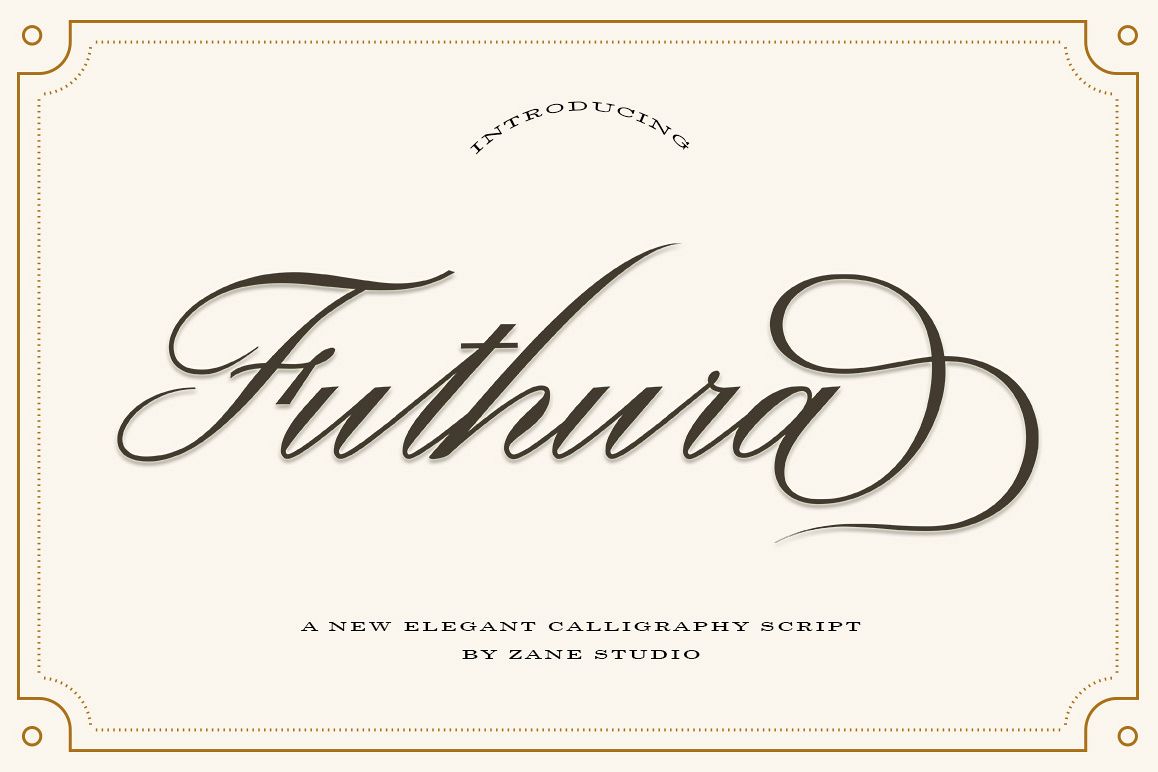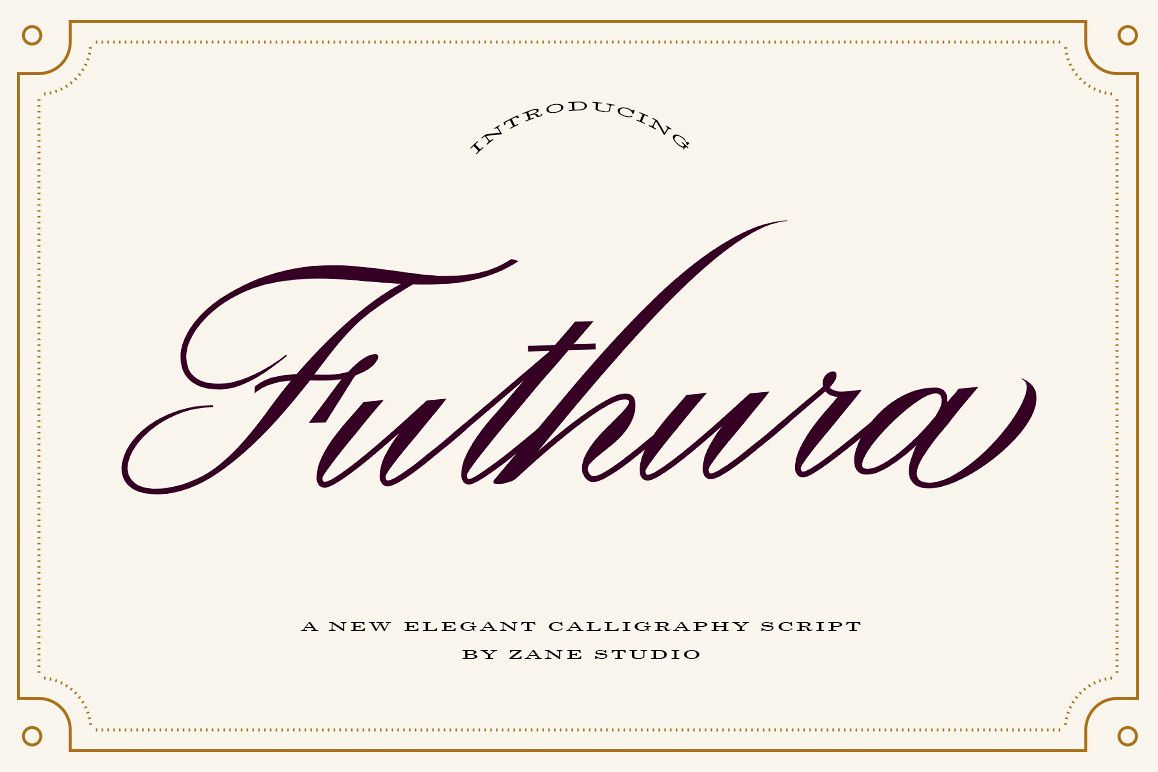
Futhura Script
Futhura Script is a calligraphy writing font equipped with beautiful alternative characters. a mixture of copper handleting calligraphy. Designed to present an elegant style. Anna Marrie attracts fonts that are smooth, feminine, sensual, glamorous, simple and very easy to read. The classic style is perfect to apply in various formal forms such as invitations, labels, menus, logos, fashion, make up, stationery, letterpress, romantic novels, magazines, books, greeting cards / wedding, packaging, labels.
Futhura Script has 326 glyphs. including various language support. With the OpenType feature with alternative styles, ligatures and characters, this allows you to mix and match pairs of letters to fit your design, as well as a touch of ornament to make this font look elegant.